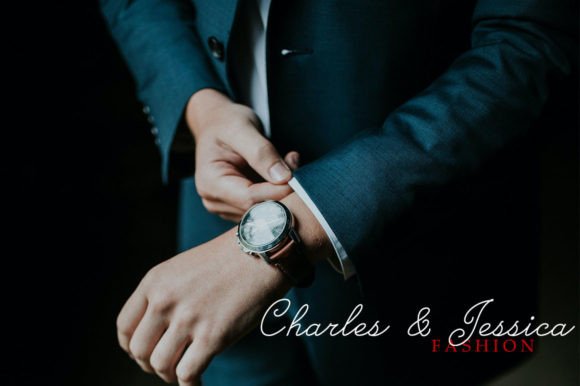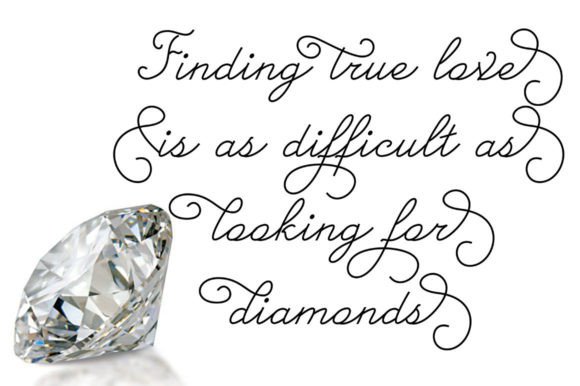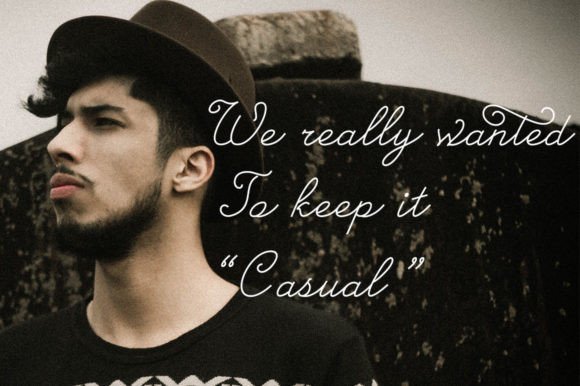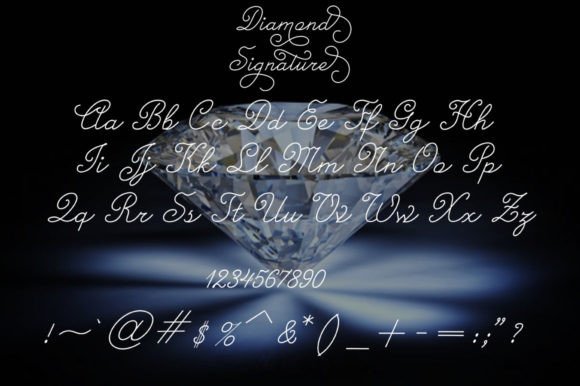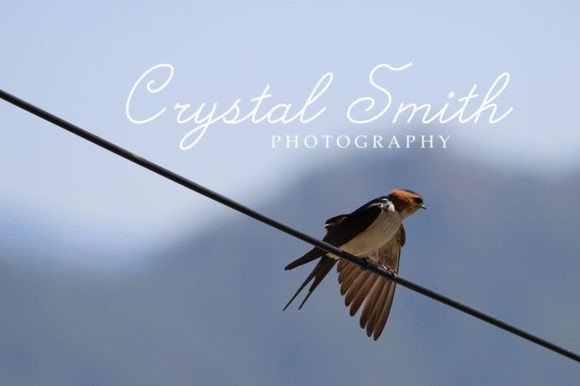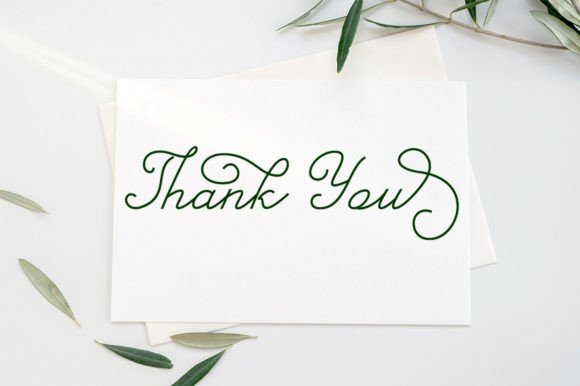
The Diamond Font: A Modern Script Calligraphy Dream
I’ll never forget the time I was working on a wedding invitation project, and my client asked for a font that was “trendy, feminine, and utterly romantic.” I scoured the internet, tried out dozens of fonts, but nothing seemed quite right. That was until I stumbled upon the Diamond font. 💕
With its irregular baseline and modern script calligraphy style, Diamond instantly captured the essence of what my client was looking for. And let me tell you, it’s been a game-changer for my design projects ever since. In this article, I’ll share with you what makes Diamond so special, its features, and how to make the most of it in your designs.
- 💫 Trendy and feminine: Diamond is perfect for designs that require a touch of elegance and sophistication.
- ✅ Highly versatile: This font can be used for wedding invitations, thank you cards, quotes, greeting cards, logos, business cards, and more.
- 🌈 Beautifully crafted: The irregular baseline and script calligraphy style give Diamond a unique and eye-catching charm.
- ⚠️ Limited use in formal or corporate designs: Diamond’s trendy and feminine style may not be suitable for more formal or corporate projects.
- ⚠️ May require adjustments for longer texts: The irregular baseline can make longer texts harder to read, so adjustments may be necessary.
The Story Behind Diamond: A Designer Inspiration
According to its designer, Diamond was inspired by the beauty of imperfect scripts and the elegance of modern calligraphy. The goal was to create a font that was both trendy and timeless, perfect for designers and crafters looking for a unique touch. 💫
Q: What type of designs is Diamond best suited for?
Diamond is perfect for designs that require a touch of elegance and sophistication, such as wedding invitations, thank you cards, quotes, greeting cards, logos, and business cards.
Q: Is Diamond a difficult font to read?
Diamond’s irregular baseline can make longer texts harder to read. However, for short texts and headings, it’s perfectly legible and adds a unique touch to your designs.